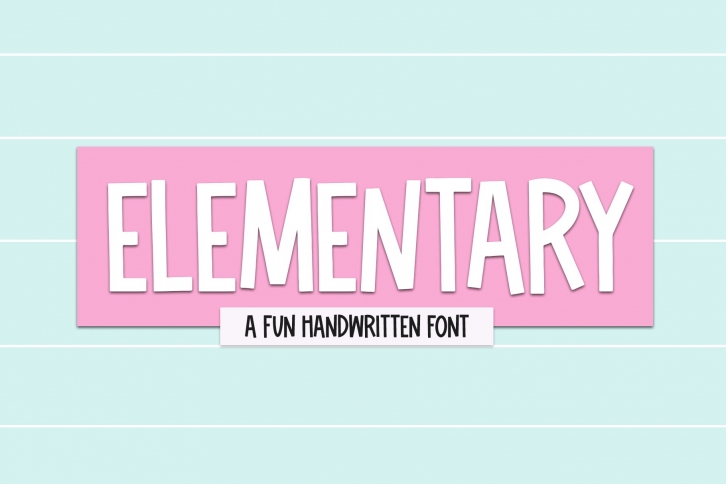
Elementary - A Fun Handwritten Font Download
Elementary is a great font that was designed by KA Designs. Imagine the amount of combinations you can create using this font! The archive is 16.4 MB and it was released on August 4, 2020. Elementary looks beautiful on wedding invitations, greeting cards, logos, posters, labels, t-shirt designs, logos, business cards and is perfect for use in ink or watercolor works, fashion, magazines, packaging and food menus, children's books and more!